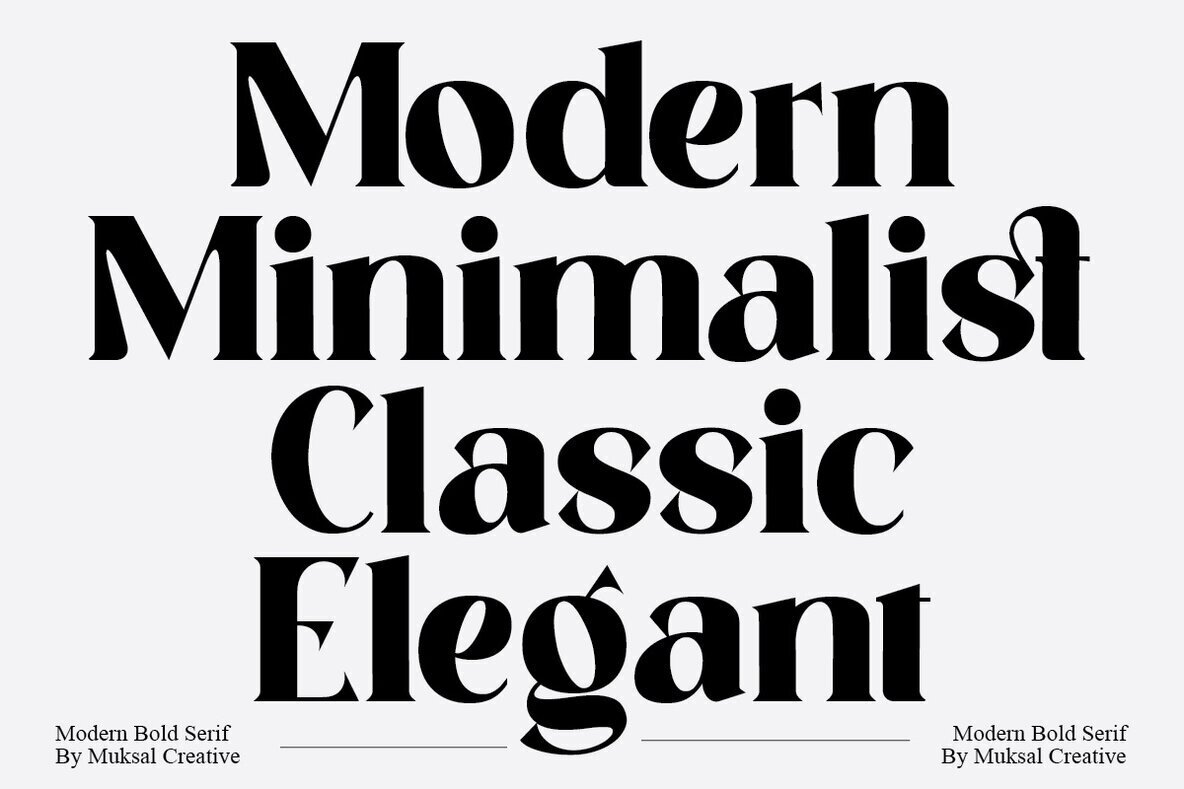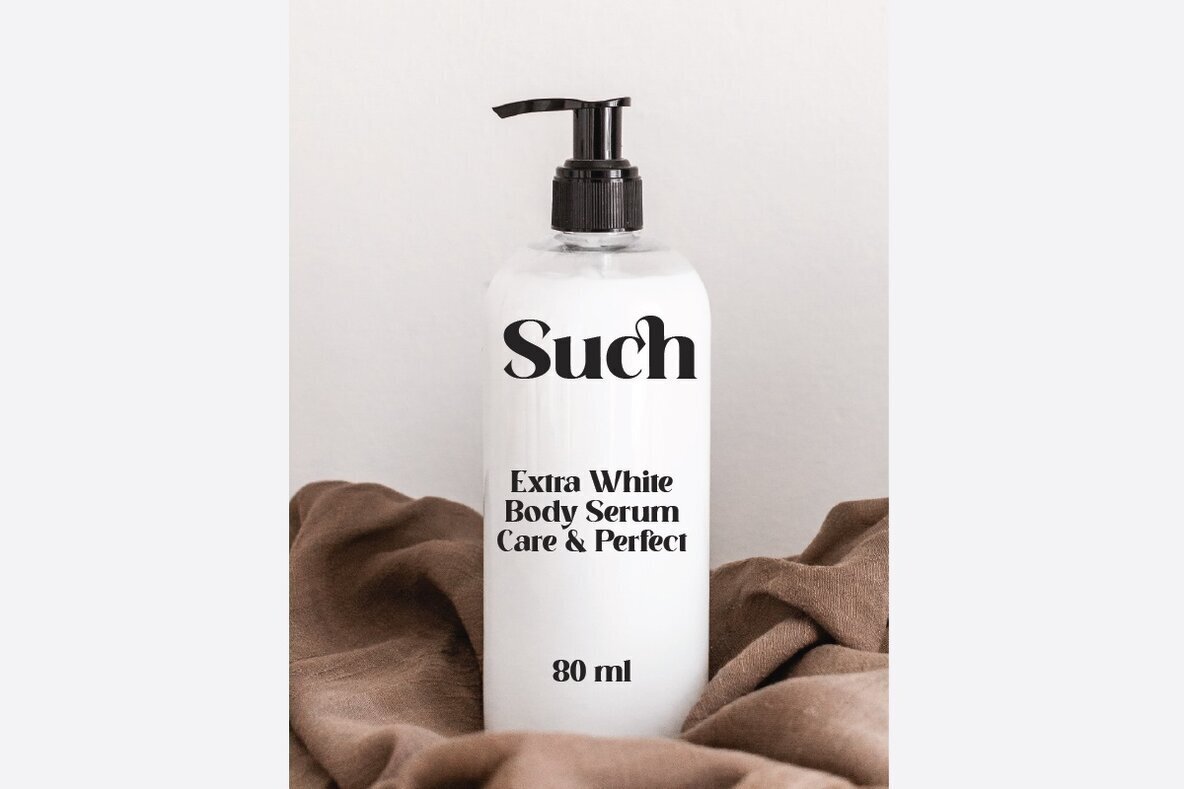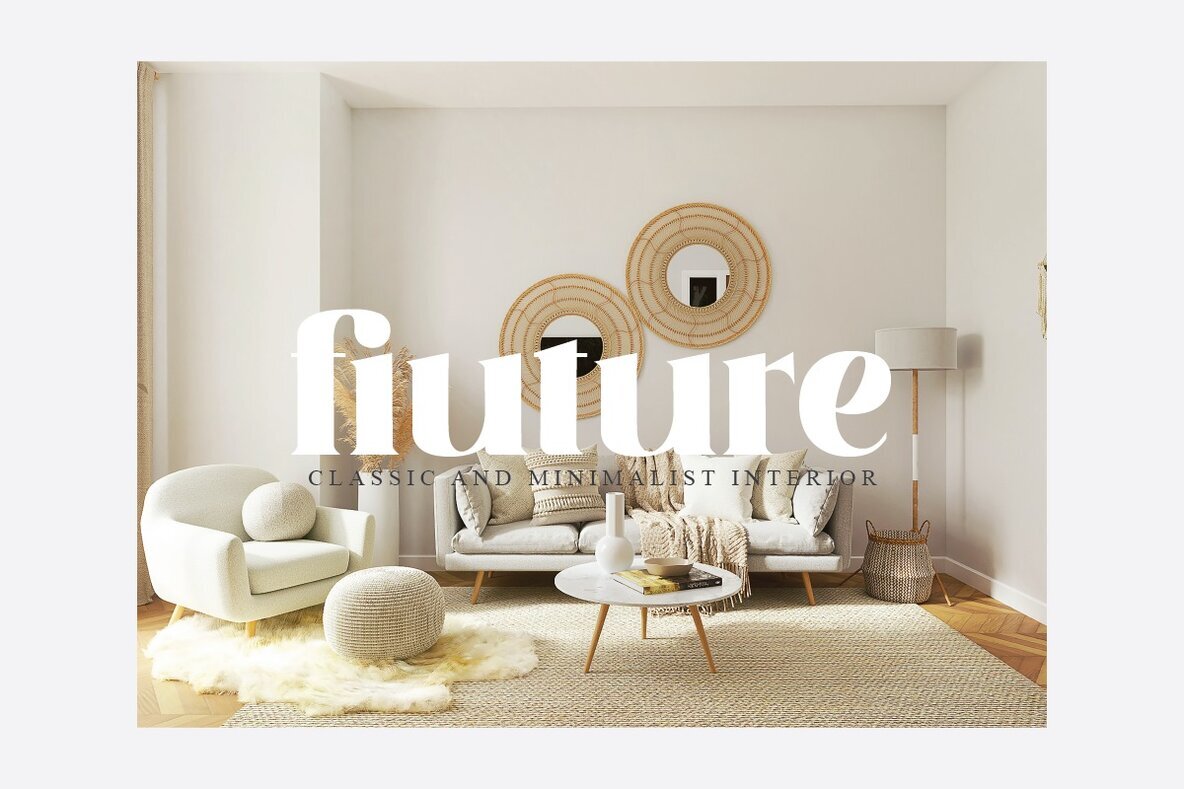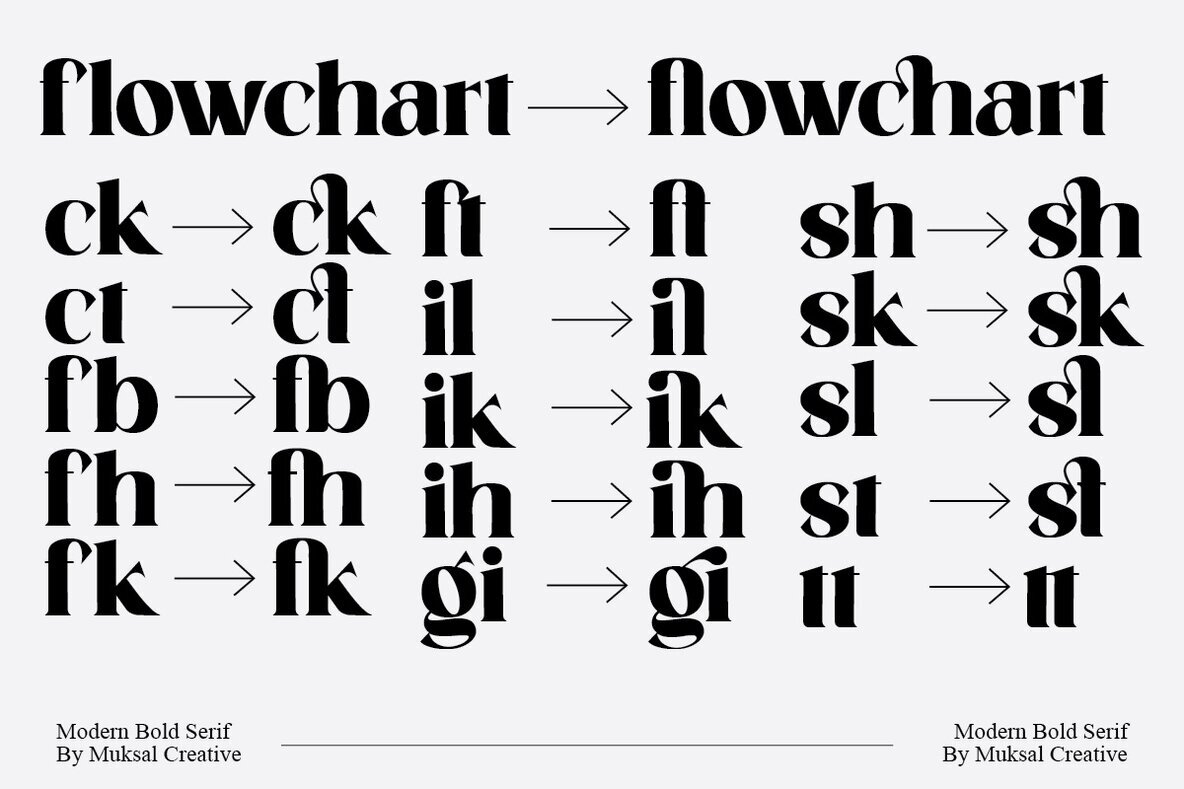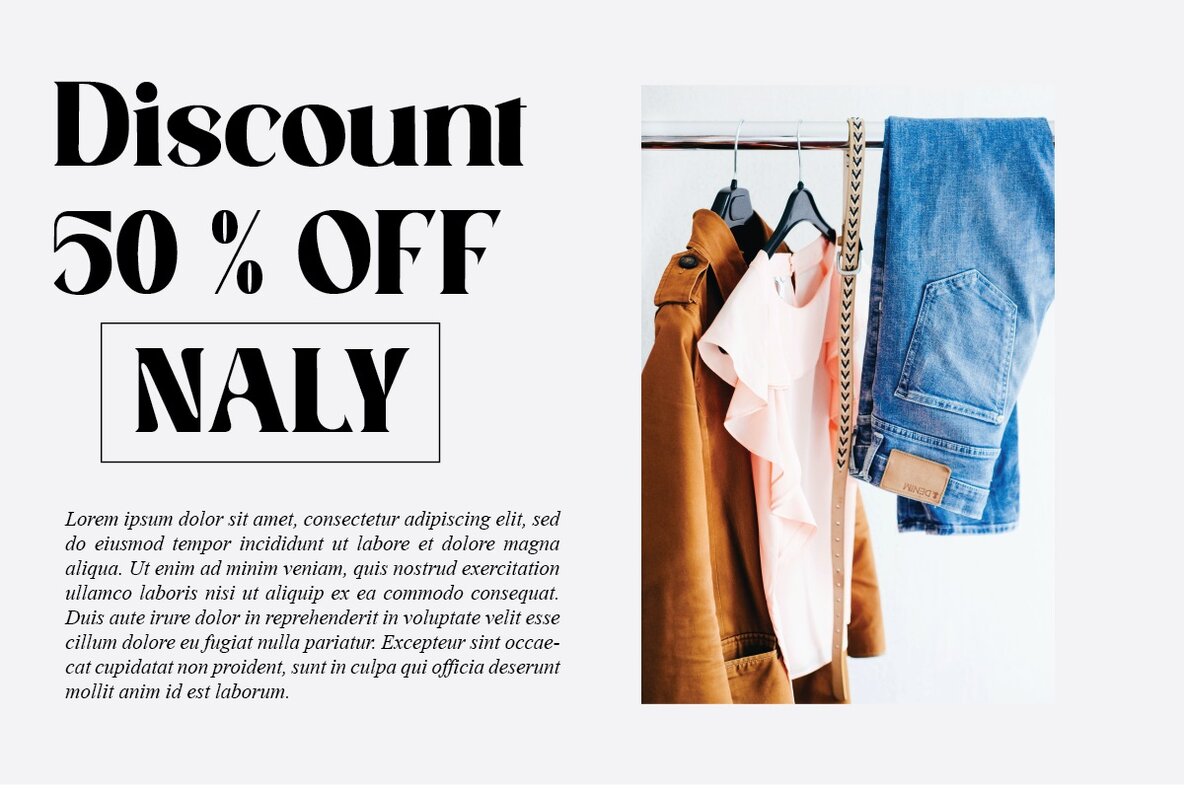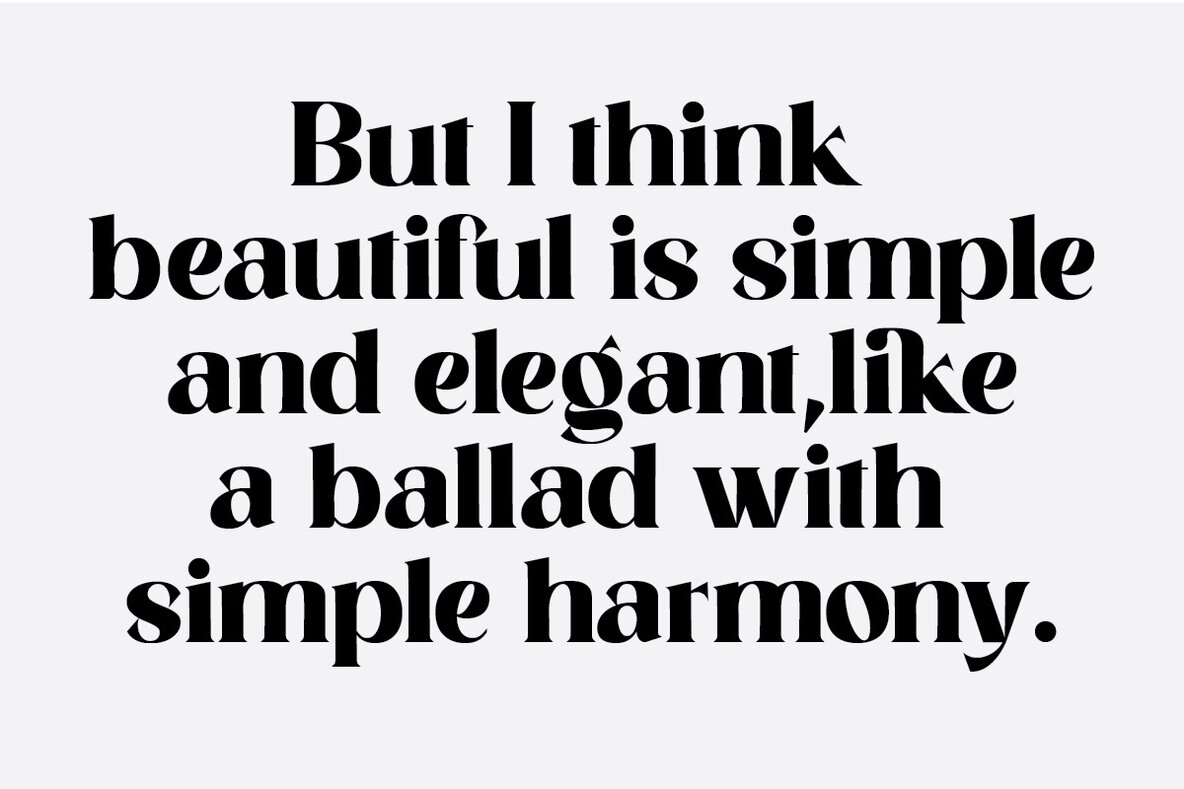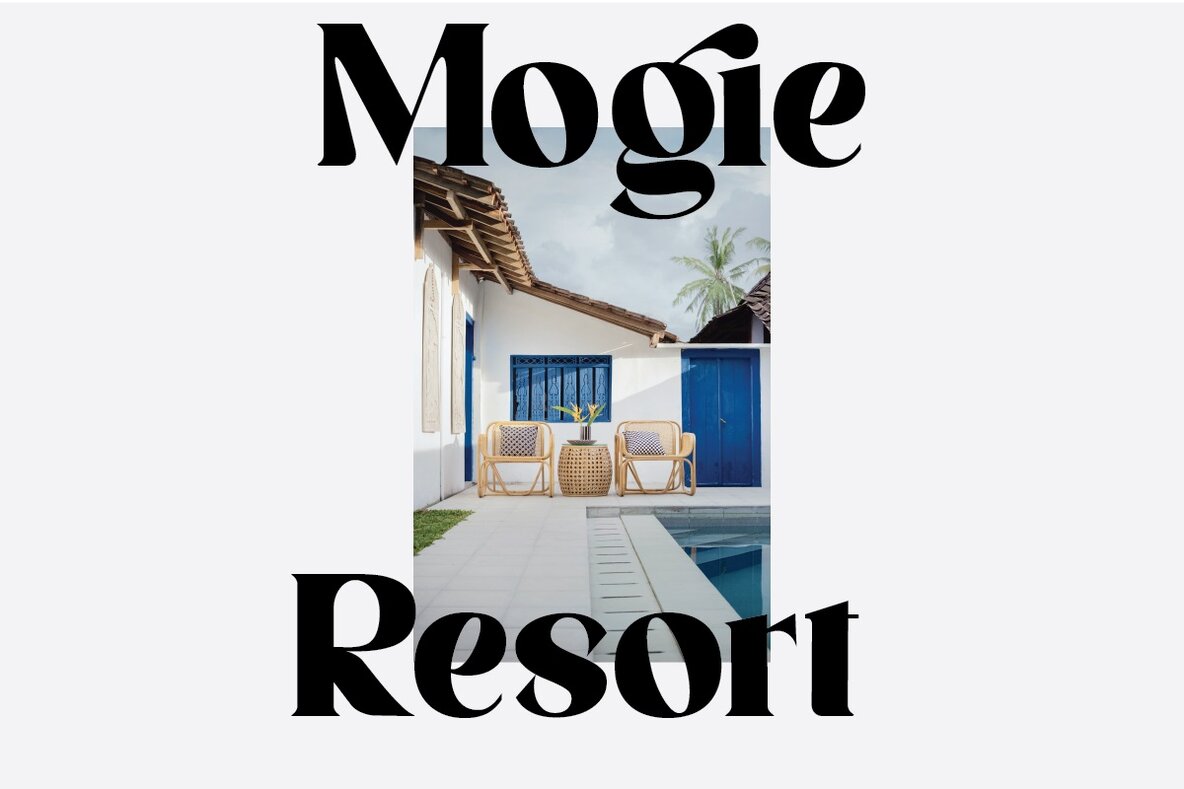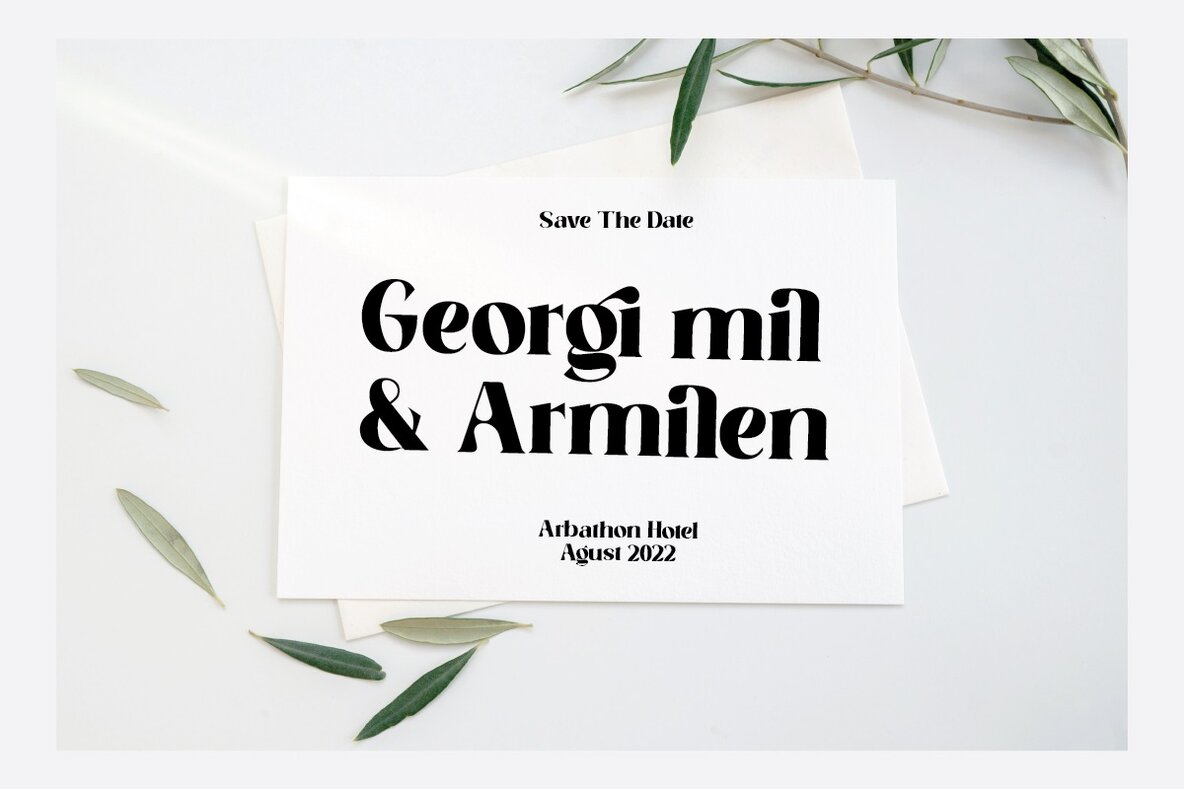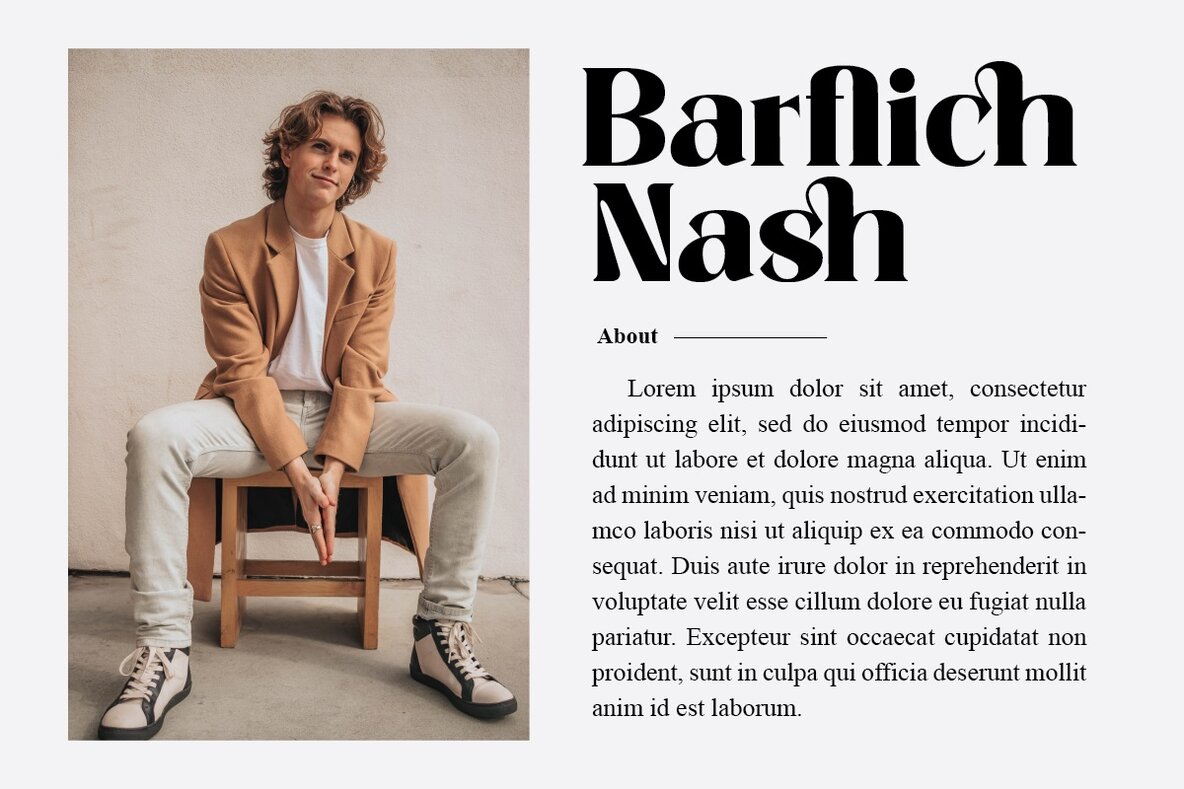
Flowchart Font
Flowchart Bold
Flow Chart is a fantastic typeface that has beautiful ligatures, special glyphs and multilingual support. The versatile design works great in large or small sizes for any project from logo designing to magazine headings- it's perfect!